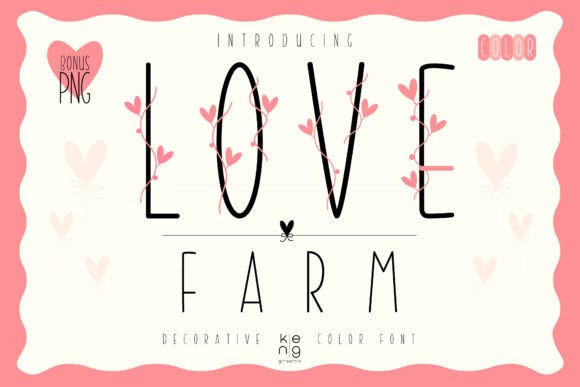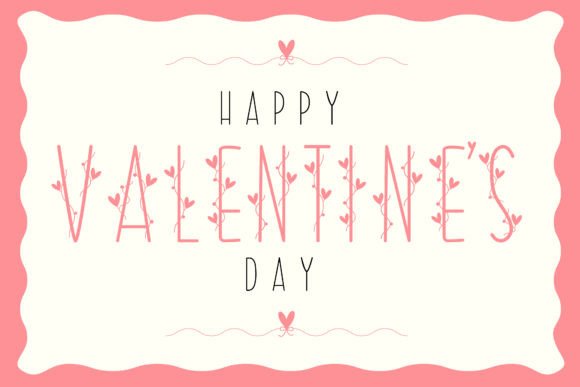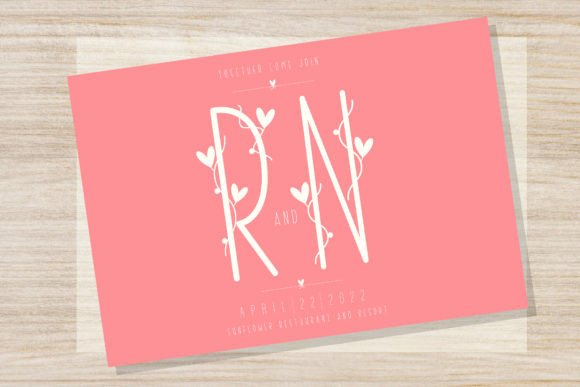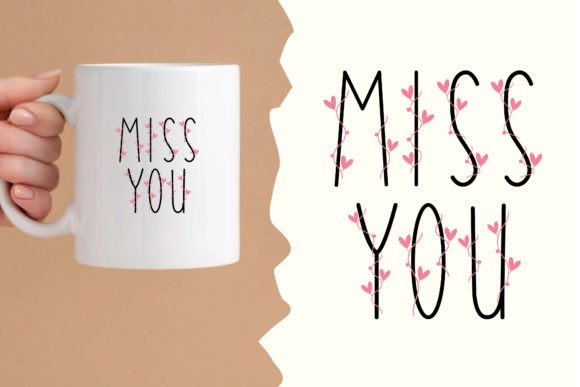
Love Farm Font: A Cute Decorative Font for Valentine’s Day Crafts
About the Love Farm Font
The wait is over! The incredible Love Farm Font is now available for your design toolkit. Love Farm is a minimal modern decorative font with a great punch. Everything written in this font will be instantly recognizable and will attract attention. It will work great for comic book style, online games, cards, love shirts, posters, movie titles, eye-catching social media posts, or anything that requires youthfulness and courage.
Love Farm’s bold, playful personality makes it ideal for headlines, short-form text in posters or social media graphics, and branding for youthful, energetic products or services. It excels in applications requiring immediate visual impact, such as logos, packaging for trendy items, and eye-catching web banners. However, its decorative nature makes it unsuitable for body text or lengthy content; readability suffers at smaller sizes.
Pair Love Farm with a clean sans-serif like Open Sans for a balanced contrast, or a classic serif such as Garamond for a sophisticated juxtaposition. For a more playful feel, consider pairing it with a rounded geometric sans-serif like Circular Std. These pairings provide readability and visual harmony, preventing the design from becoming overwhelming.
The font’s inherent energy makes it a strong choice for brands targeting a younger demographic, particularly in sectors like fashion, entertainment, and food & beverage where vibrancy and visual appeal are paramount.
Love Farm Font Usage Examples
Love Farm Font Example